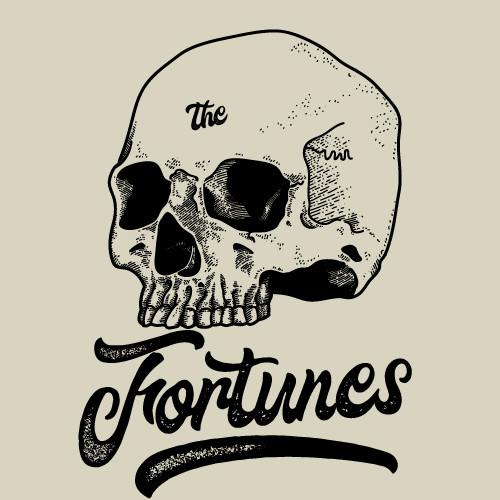
Milestone Font Description
Milestone is a beautiful duo font (handwritten and serif) inspired by Vintage baseball sport, sign painting, labeling, suitable for logo, labels, old-fashioned coffee shops, bars, and everything with specific characteristics of past times. Milestone is great combined to create something good and with a vintage feel!